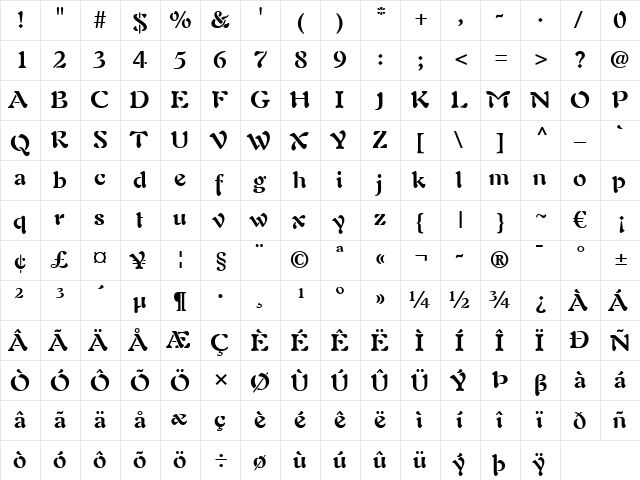
Auriol LT Bold
Design Context for Auriol LT Typeface
Auriol LT takes a measured approach to typography — its balanced proportions and neutral character make it a reliable workhorse for both digital and print work. The heavy weight commands attention and anchors typographic hierarchies.